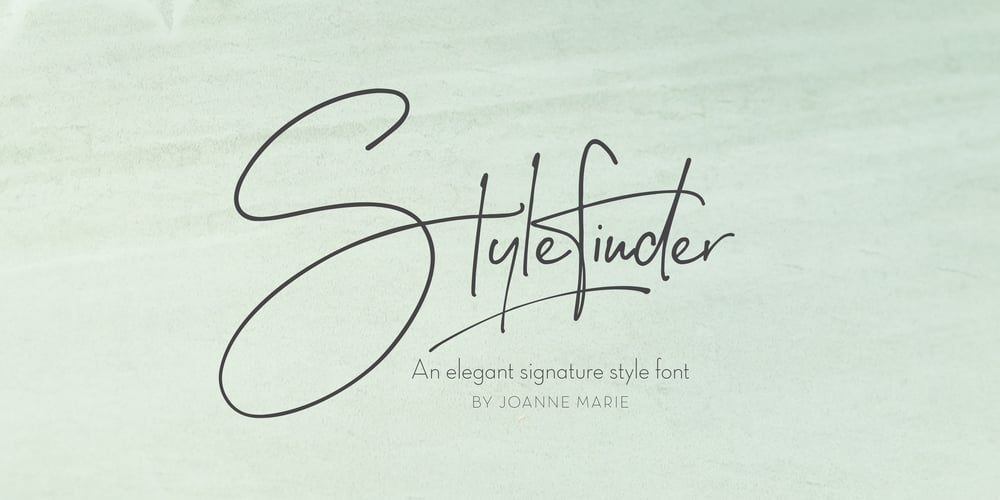
Stylefinder
Stylefinder font
Stylefinder Font Family was designed by Joanne Hewitt and published by Joanne Marie. Stylefinder contains 1 styles and family package options. Stylefinder is a new elegant signature style font which gives any design project that authentic handwritten feel.It’s perfect for logos, branding, headlines, sub-headers and taglines. This type of font is currently extremely popular in the logo design community – Over the years I’ve created many unique logos for new businesses using different styles of hand lettering and calligraphy, so I thought it was time to make something available for you all to use in your own designs.Stylefinder comes with some alternate lowercase glyphs, ligatures and six additional swashes to give that finishing touch.There is also a large amount of multi-lingual support.